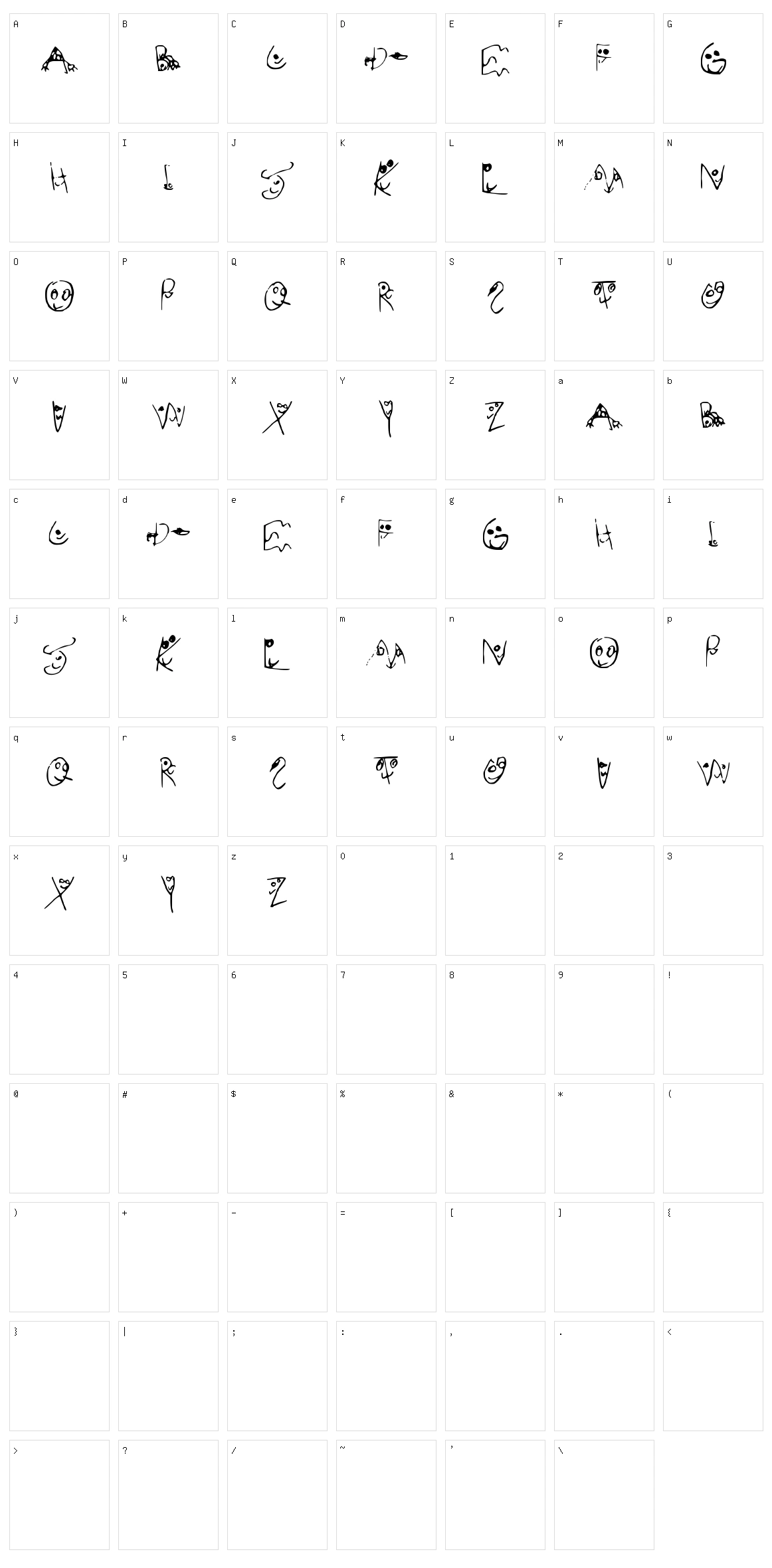
The free font Reddit Face is carefully designed by Bill Bones, showcasing a thoughtful balance of creativity and usability and falls under the Cartoon font style. When you download the ZIP file, it contains only 9.77 KB of font files, making it lightweight and quick to download. Please review the license details below to understand permitted usage and distribution rights. If license information is not available, we recommend using this font for personal projects only or contacting the author directly for commercial usage permissions.